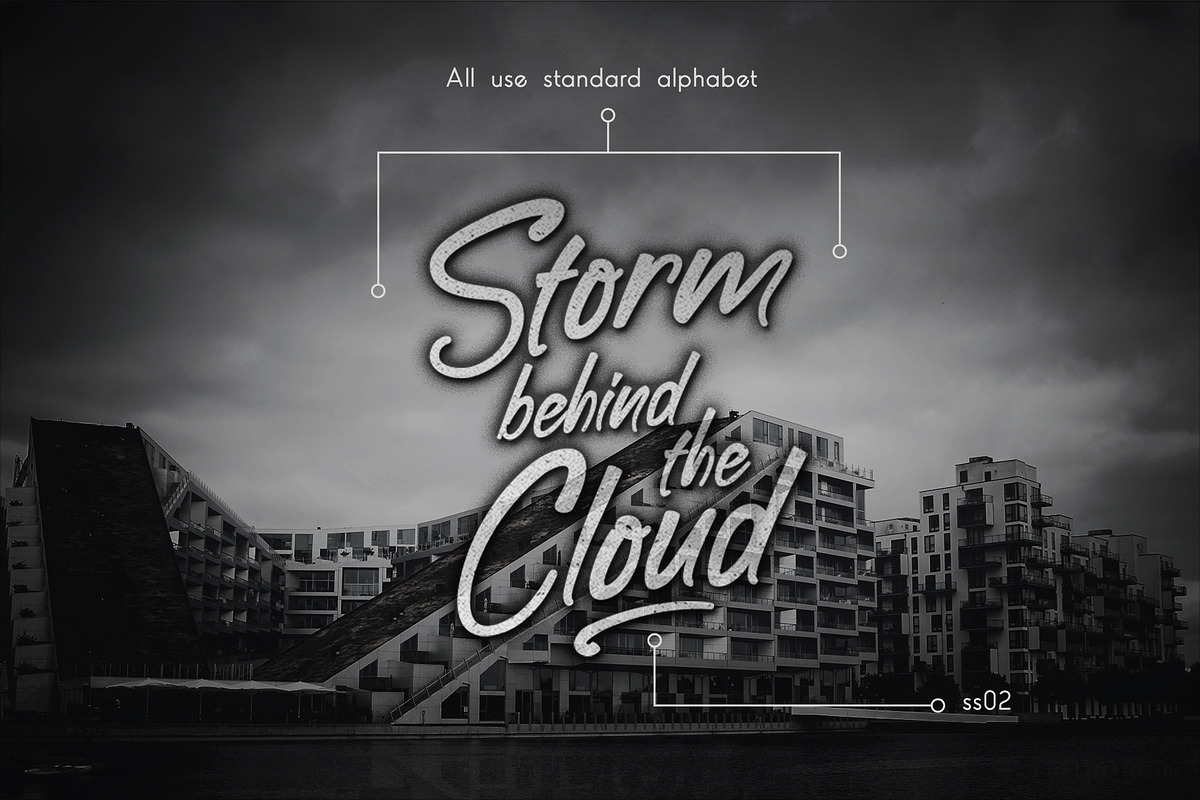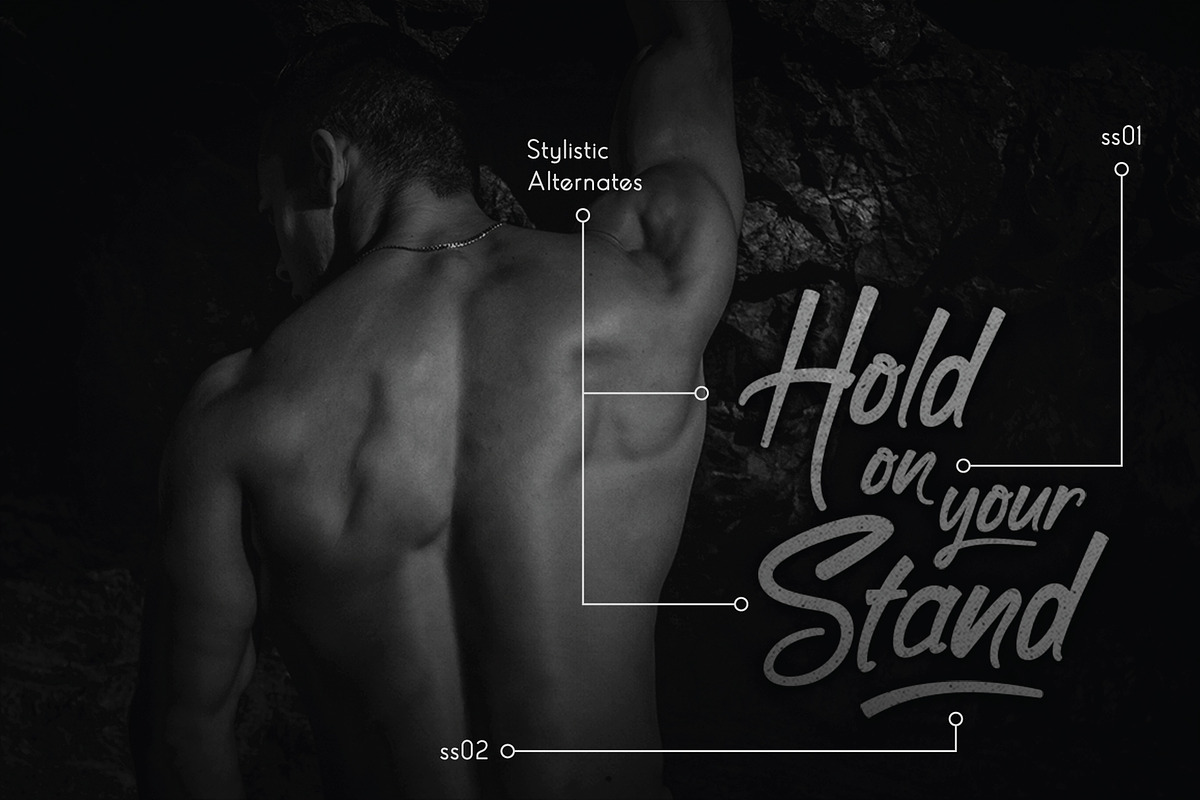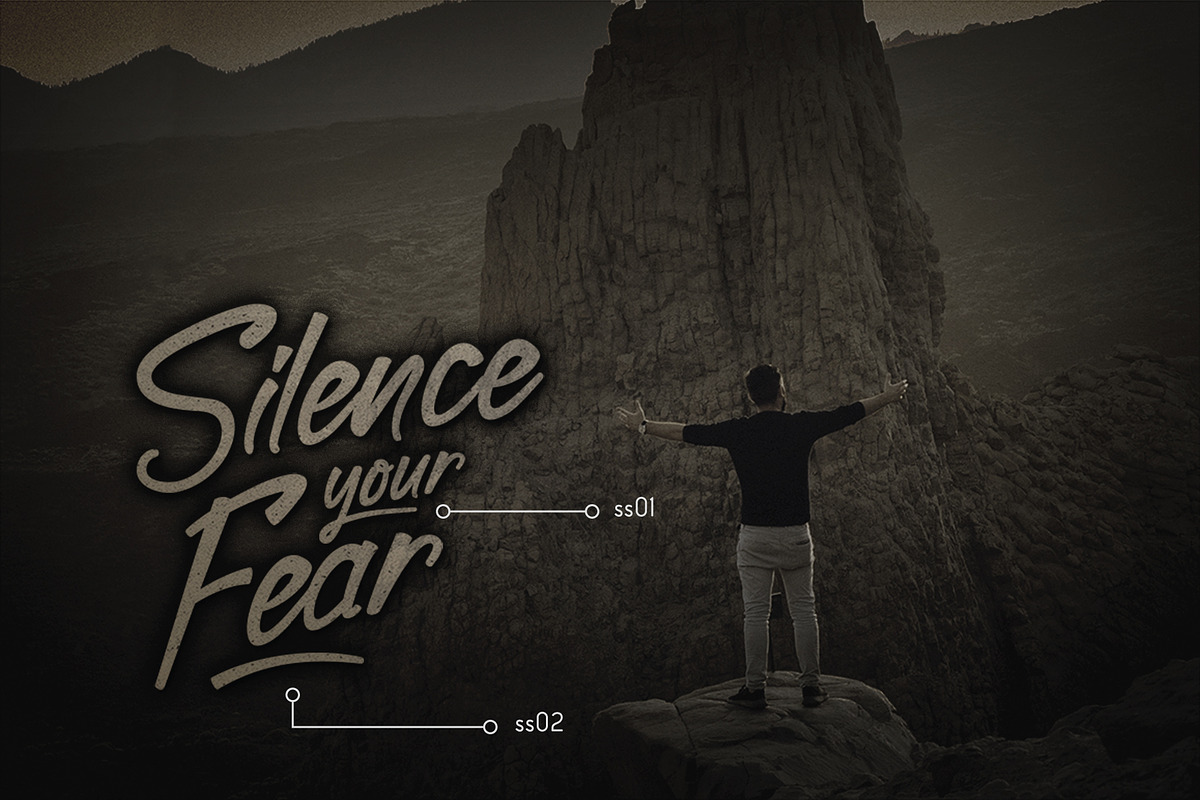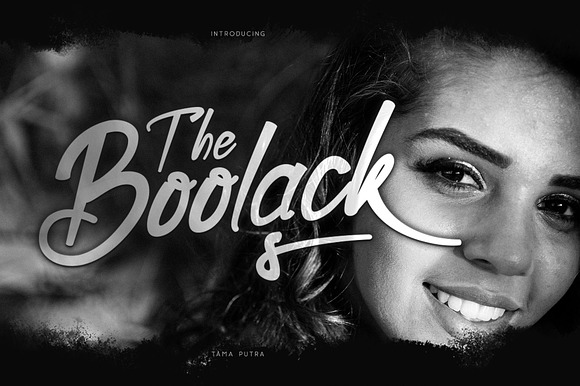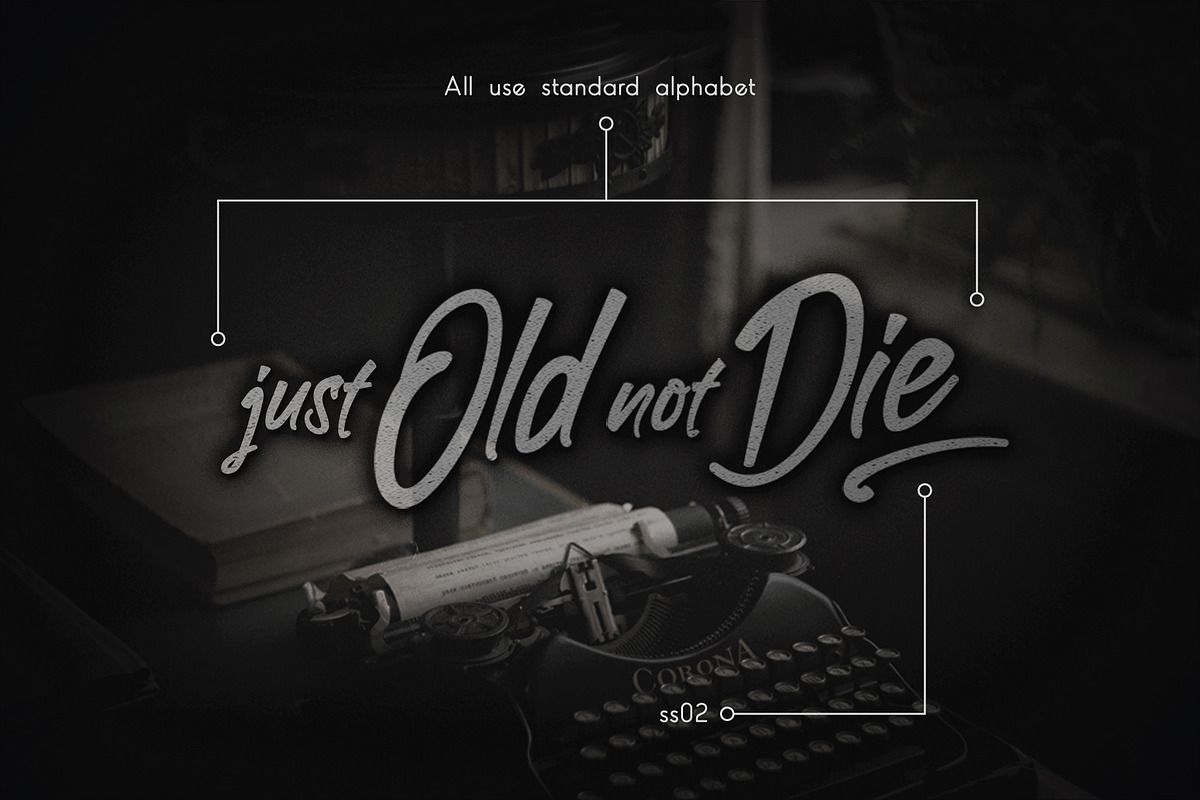
Boolack Font
Boolack is a handwritten typeface. It is suitable for any design needs, branding, cover title, t-shirts, posters and more.
It includes multi-lingual and currency support, numerals, and punctuations. It comes comes with stylistic alternates, ss01, ss02.
This typeface can be put to many uses:
Boolack typeface is suitable font for creating beautiful things and many creative work.
Why Boolack Font is worth a look
Boolack Font by Vacatype Co. fits naturally into Branding, posters, packaging, typography.